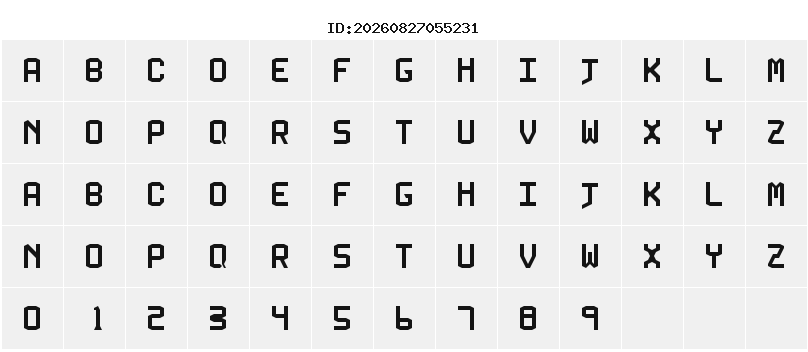
• Font Name: 5Kallum Sans Neue
• Designer: Noah - 10 year old typomaniac
• Description: ‚Äú5Kallum Sans Neue‚Äù was built with FontStruct ‚Äú5Kallum Sans Neue‚Äù is based on ‚ÄúKallum Sans‚Äù by ‚ÄúNoah - 10 year old typomaniac‚Äù (http://fontstruct.com/fontstructors/winty5)
5Kallum Sans Neue.ttf is a modern, elegant sans-serif font designed for ultimate readability and visual harmony. Perfect for branding, headlines, web design, and print materials.